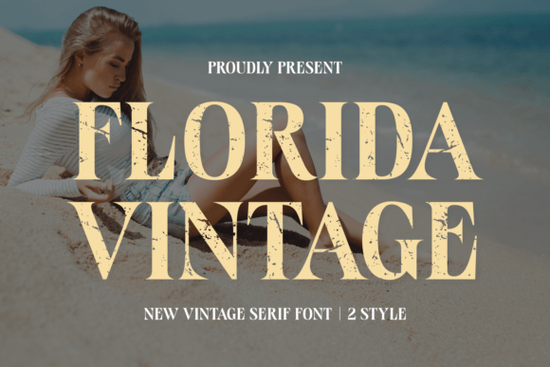
If you’re looking for a typeface that blends old‑school charm with a modern edge, Florida Vintage Font is worth a closer look. Designed as a serif font with a distinctly nostalgic feel, it adds a warm, sun‑soaked personality to everything from book covers to T‑shirt graphics. The grunge accents and all‑caps styling help it grab attention without shouting, making it a versatile choice for designers who want that “lived‑in” look.
How can you use Florida Vintage Font in real projects?
Because it walks the line between classic serif structure and slightly weathered detail, this font works for a wide range of applications. Here are a few common use cases where it can shine:
- Branding and logos – The vintage feel pairs well with coffee shops, boutique hotels, summer apparel lines, or anything that wants a retro identity.
- Book covers and magazines – If you’re designing a novel with a beach setting or a nostalgic theme, the letterforms add instant atmosphere.
- T‑shirt and apparel designs – The grunge texture holds up well on fabric, and the all‑caps style keeps text readable from a distance.
- Greeting cards and invitations – Think summer parties, retirement celebrations, or anything with a relaxed, sunny tone.
- Packaging – Products like craft beer, organic snacks, or handmade cosmetics can benefit from the hand‑crafted, slightly imperfect look.
What makes it different from other vintage serif fonts?
Many “vintage” fonts rely on overly distressed, hard‑to‑read letters. Florida Vintage Font keeps a clear serif structure, so it stays readable even at smaller sizes. The grunge is present but subtle – it feels like something printed in the 1950s that was stored in a cardboard box, not run over by a truck. This balance makes it useful for long text passages on book covers or magazines, while still having enough character for headline use.
Another differentiator is the summer tone. Most vintage fonts lean dark and moody; this one has a lighter, more optimistic feel. The designer mentioned that it echoes “summer tones,” which translates to a warmth that works well with yellow, coral, turquoise, or other sunny palettes.